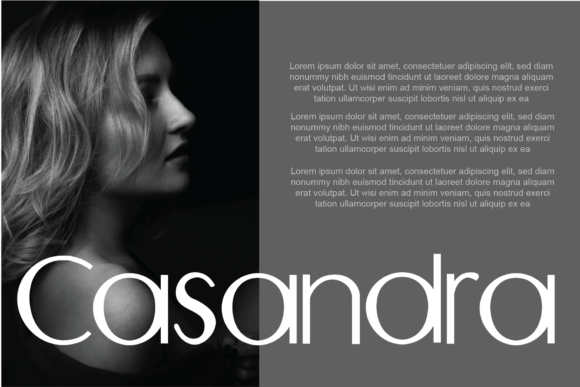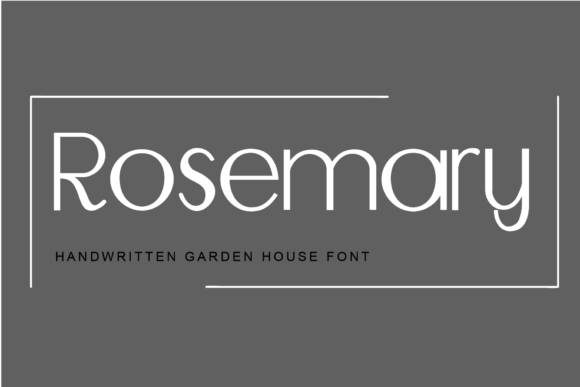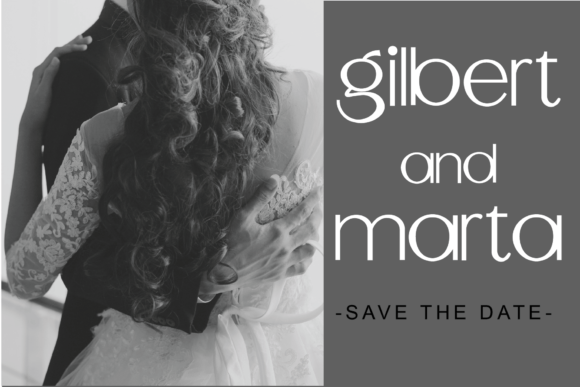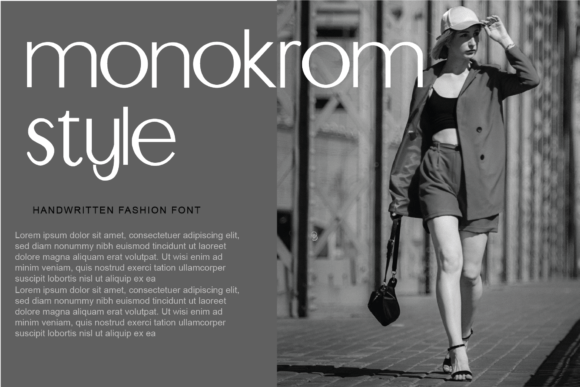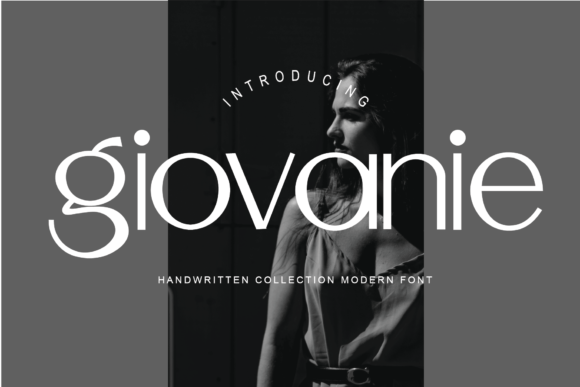
Introducing Giovanie Font: Elevate Your Designs with a Stylish and Modern Twist
In the world of typography, fonts play a crucial role in making or breaking a design. A perfect font can instantly elevate your project, making it stand out from the crowd. If you’re on the lookout for a stylish and cool display font that exudes a modern and futuristic vibe, look no further than Giovanie Font. This stunning font is designed to add a touch of sophistication and elegance to your creative projects, making them truly unforgettable.
What Makes Giovanie Font So Special?
Giovanie Font is a display font that boasts a sleek and contemporary design, perfect for designers and crafters looking to add a modern twist to their work. Its unique and futuristic style makes it an excellent choice for a wide range of projects, from branding and advertising to packaging and digital media. Whether you’re working on a logo, poster, or social media graphic, Giovanie Font is sure to make your design pop.
Key Features of Giovanie Font
- Stylish and Cool Design: Giovanie Font features a sleek and modern design that’s sure to turn heads. Its clean lines and futuristic style make it perfect for designs that require a touch of sophistication.
- Highly Versatile: This font is incredibly versatile, making it suitable for a wide range of projects, from print materials to digital media.
- Easily Readable: Despite its futuristic design, Giovanie Font remains easily readable, even at smaller sizes.
- Perfect for Branding: With its unique and memorable style, Giovanie Font is an excellent choice for branding projects, helping you to create a lasting impression on your audience.
Tips and Tricks for Getting the Most Out of Giovanie Font
- Experiment with Different Sizes: Giovanie Font looks great at a range of sizes, from large display headings to smaller body text.
- Play with Color: The font’s sleek design looks great in a range of colors, from bold and bright to subtle and muted.
- Combine with Other Fonts: Giovanie Font pairs well with a range of other fonts, making it easy to create visually appealing and harmonious designs.
Why Designers and Crafters Love Giovanie Font
Giovanie Font has quickly become a favorite among designers and crafters, and it’s easy to see why. Its unique and stylish design makes it perfect for a wide range of projects, while its versatility and readability ensure that it can be used in a variety of contexts. Whether you’re working on a personal project or a client’s brief, Giovanie Font is sure to help you create something truly special.
If you’re looking for a stylish and cool display font that will elevate your designs and make them stand out, look no further than Giovanie Font. With its modern and futuristic style, versatility, and readability, this font is perfect for designers and crafters looking to add a touch of sophistication to their work. Download Giovanie Font today and watch your designs come to life!